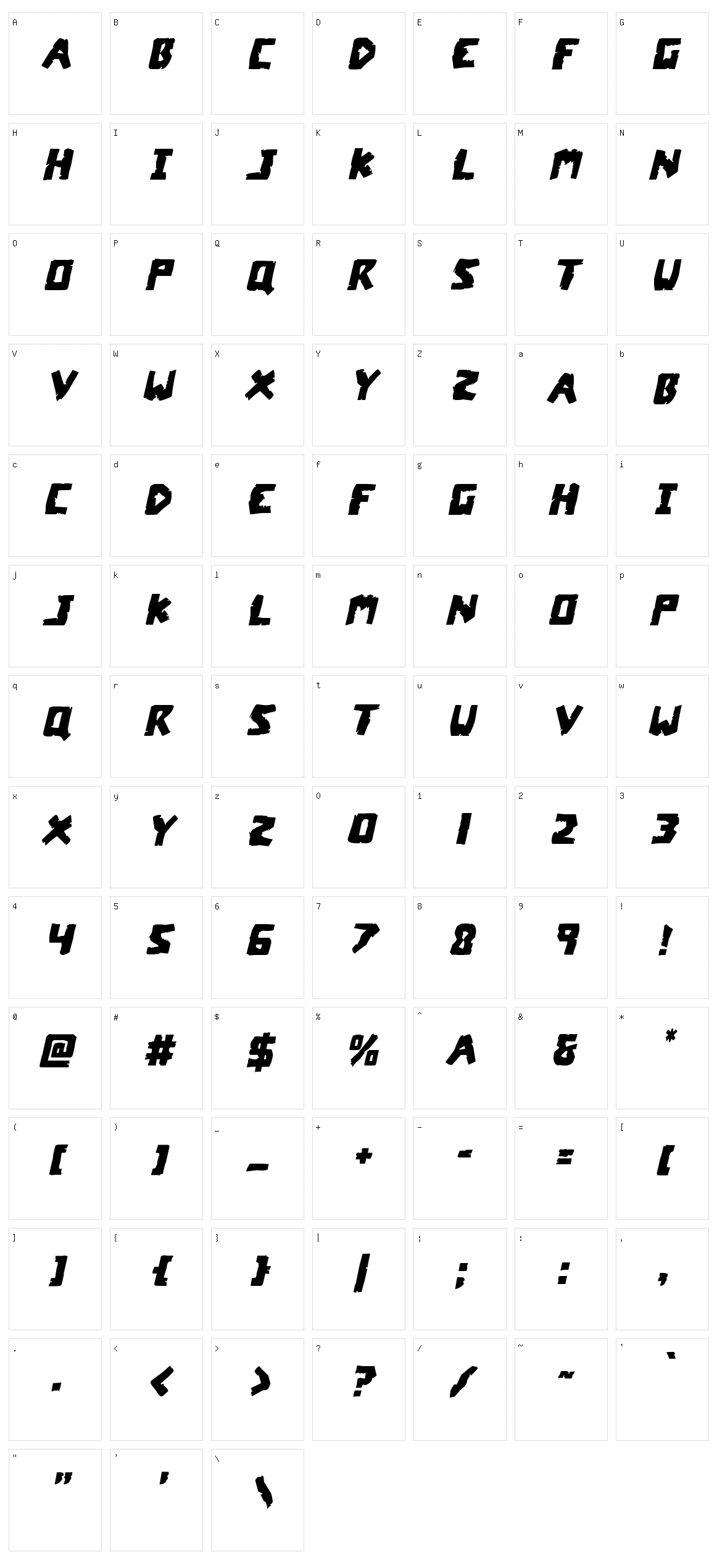
The free font Coffin Stone is carefully designed by Iconian Fonts, showcasing a thoughtful balance of creativity and usability and falls under the Halloween font style. When you download the ZIP file, it contains only 799.83 KB of font files, making it lightweight and quick to download. Please review the license details below to understand permitted usage and distribution rights. If license information is not available, we recommend using this font for personal projects only or contacting the author directly for commercial usage permissions.
This font comes with the following 20 versions: Regular, Italic, Semi-Italic, Condensed, Condensed Italic, Expanded, Expanded Italic, 3D, 3D Italic, Gradient, Gradient Italic, Staggered, Staggered Italic, Staggered Rotated, Staggered Rotalic, Rotated, Rotated 2, Rotalic, Leftalic and Super-Italic.